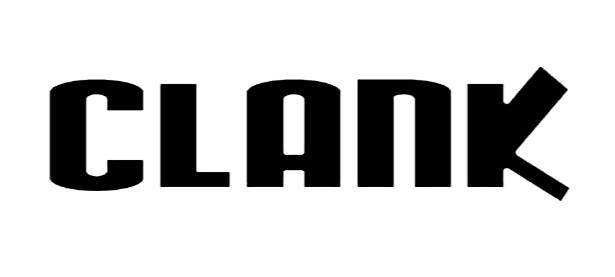
Looking for the font of sound in Sonic Archie comic
This sound was used in recent Sonic comic book published by Archie comics.
But it's obviously compressed horizontally, so I made default version of it: